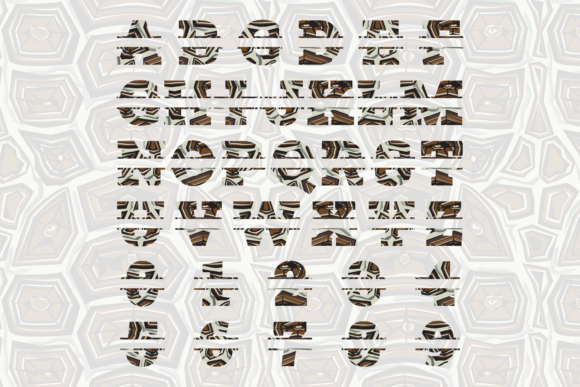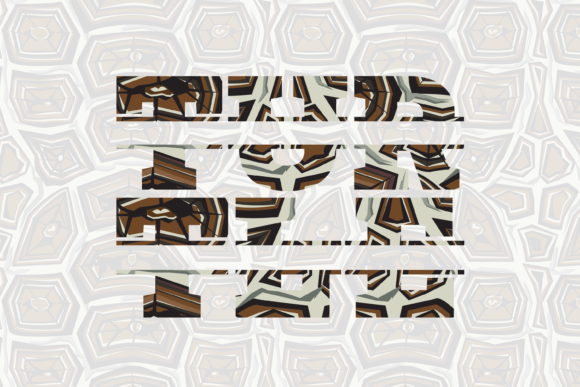
Turtle Split Font
About Turtle Split Font
Turtle Split is an incredibly cool font that features cute turtle elements, making it an excellent choice for a wide range of design projects. Here are some reasons why Turtle Split stands out:
1. Unique Turtle Elements: Turtle Split font showcases adorable turtle designs within each letter. These charming and whimsical turtle elements add a playful touch to your designs, making them perfect for projects related to nature, animals, or anything that requires a delightful and engaging aesthetic.
2. Versatile Usage: Turtle Split font is highly versatile and can be used for various design applications. Whether you’re creating custom designs, DIY crafts, posters, logos, or any other project that needs a lovely touch, Turtle Split font offers a fun and eye-catching option.
3. Customizable and Easy to Use: Turtle Split font allows for easy customization. Simply type your desired text using the font, and each letter will be transformed into a unique representation of a turtle. This flexibility allows you to create personalized designs and tailor the font to suit your specific needs.
4. DIY Crafts and Personal Projects: Turtle Split font is ideal for DIY crafts and personal projects. Whether you’re designing greeting cards, invitations, scrapbooking, or creating custom artwork, Turtle Split font adds a charming and whimsical element to your creations. It’s perfect for adding a touch of cuteness and personality to your crafts.
5. Eye-Catching and Memorable: Turtle Split font is designed to capture attention and leave a lasting impression. The unique turtle elements within each letter make your designs stand out and create a memorable visual impact. Whether you’re designing branding materials, advertisements, or social media graphics, Turtle Split font adds a playful and captivating touch.
6. Suitable for Nature and Animal-Themed Designs: With its turtle elements, Turtle Split font is an excellent choice for designs inspired by nature, animals, or conservation. It’s perfect for projects related to environmental awareness, wildlife campaigns, or anything that celebrates the beauty and charm of turtles.
Whether you’re working on custom designs, DIY crafts, or any creation that requires a lovely touch, Turtle Split font will be an amazing choice. Let the cute turtle elements bring joy and creativity to your projects. Embrace the whimsical charm of Turtle Split font and let your imagination soar!